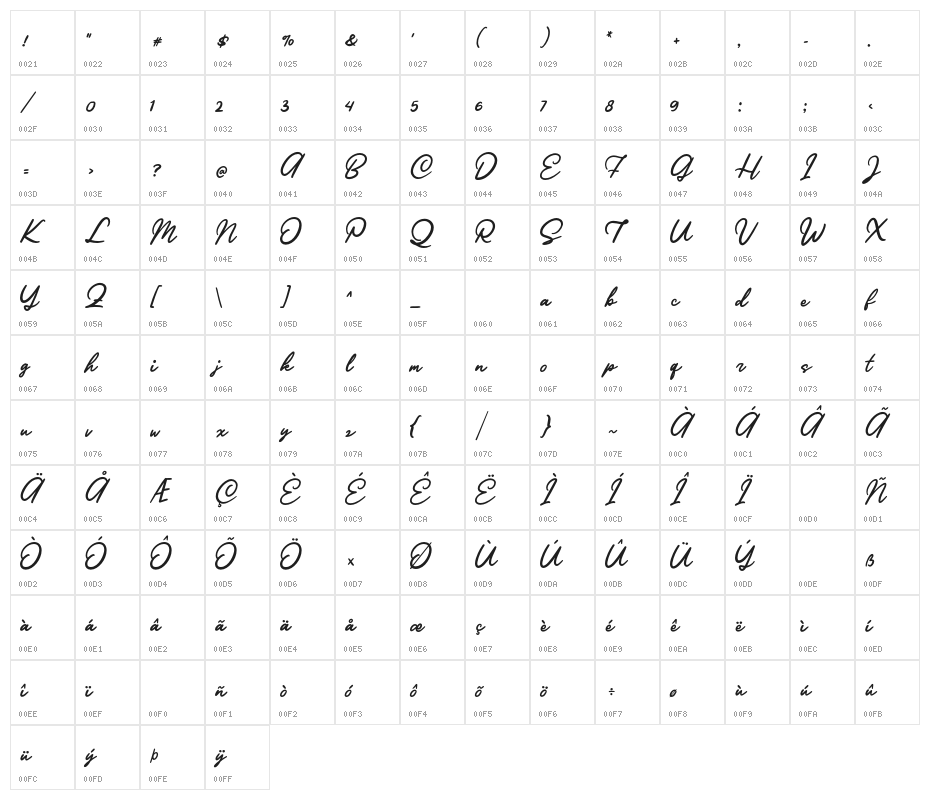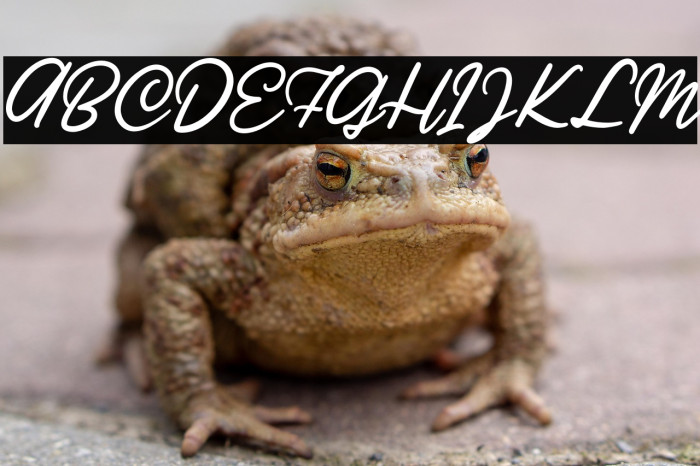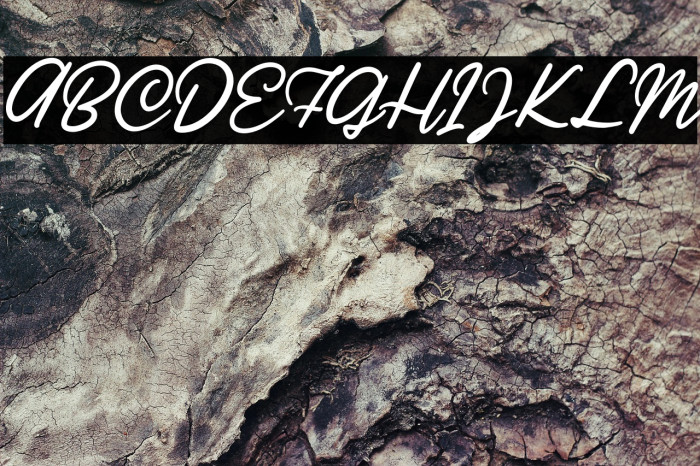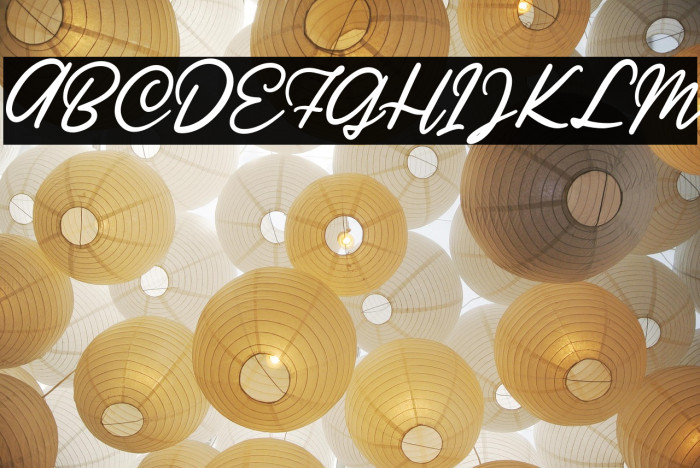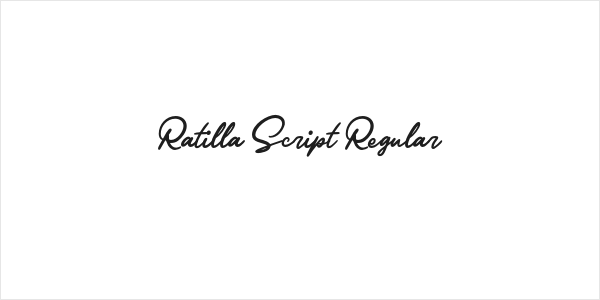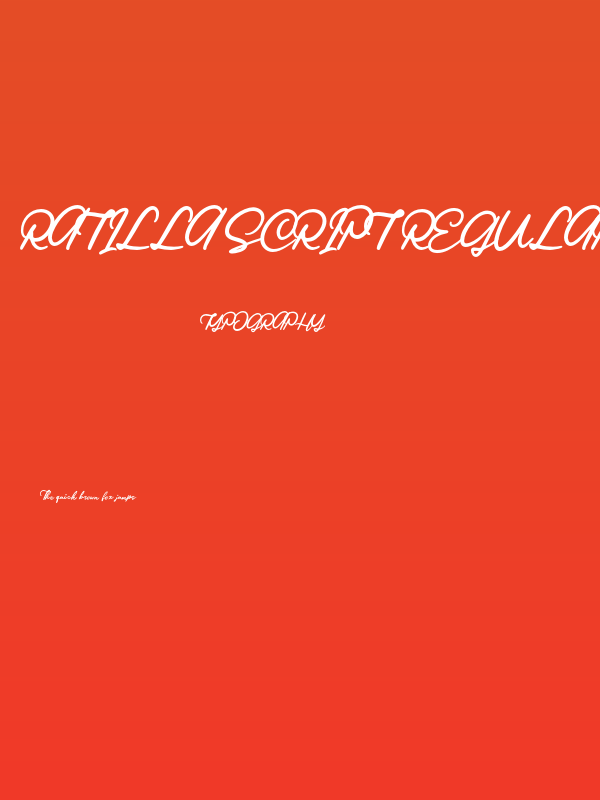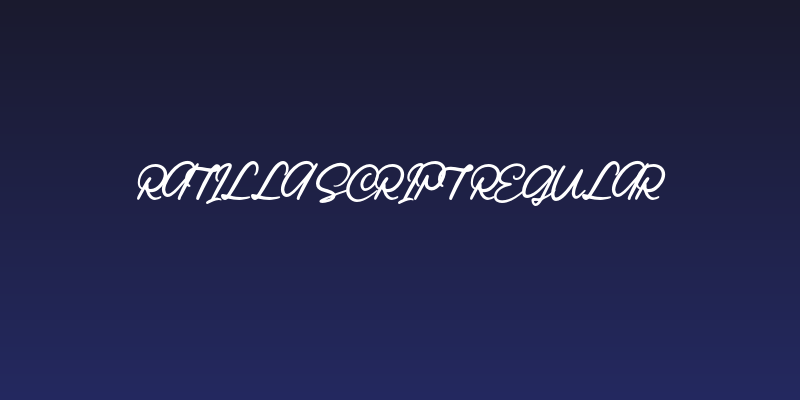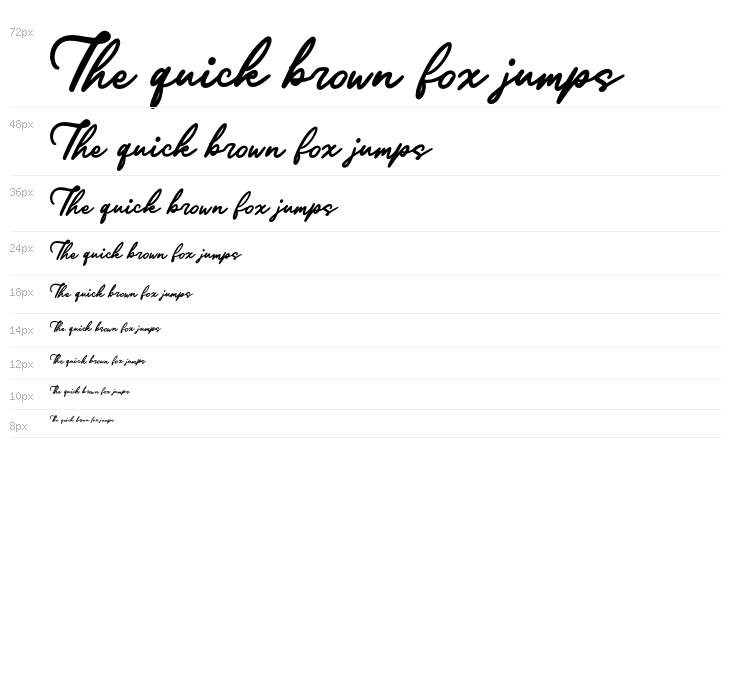
Ratilla Script Regular Font
Ratilla Script Regular Description
This elegant script font features a flowing, cursive style that mimics the fluidity of handwritten calligraphy. The characters are connected with smooth, sweeping strokes, giving it a graceful and sophisticated appearance. The uppercase letters are bold and prominent, while the lowercase letters maintain a consistent flow, enhancing readability. The numerals and special characters are designed with the same attention to detail, ensuring a cohesive look across all text. This font is ideal for projects that require a touch of elegance and personal flair.
| Overall Style | Elegant, Handwritten |
| Proposed Projects | Ideal for wedding invitations, greeting cards, branding, and elegant logo designs. |